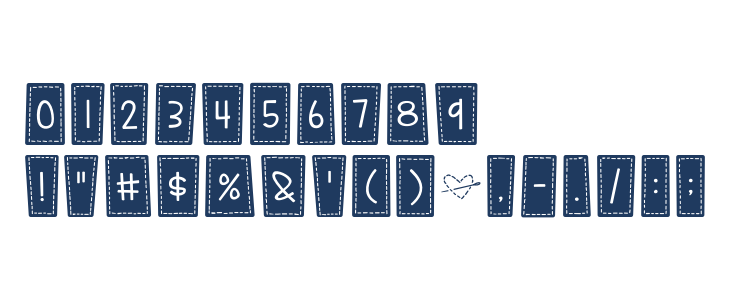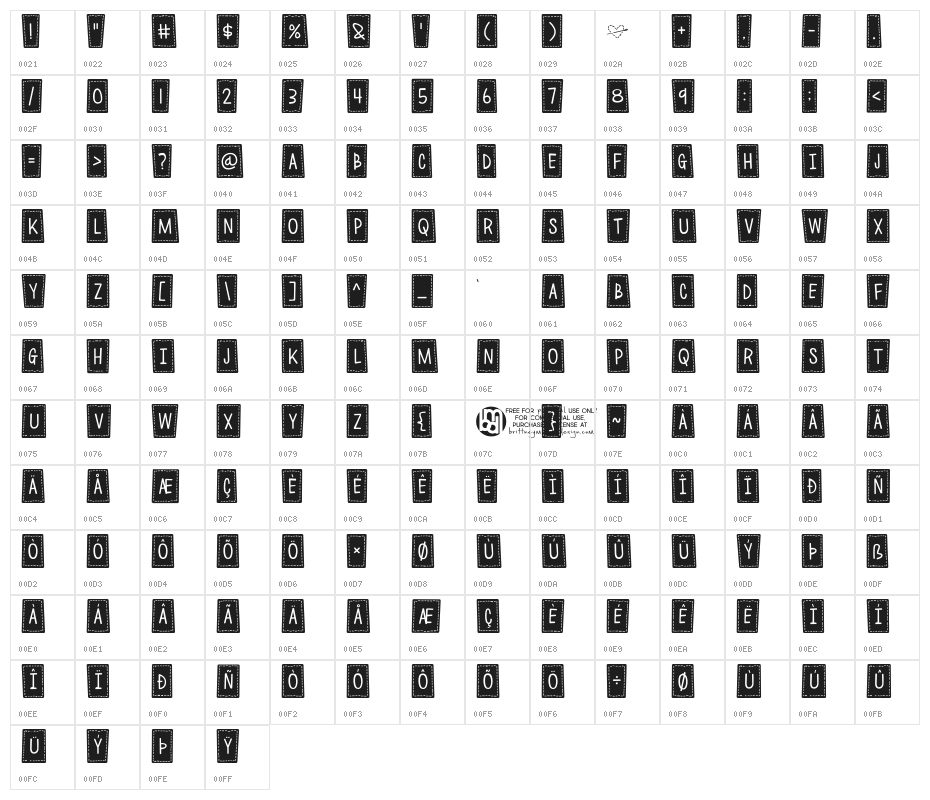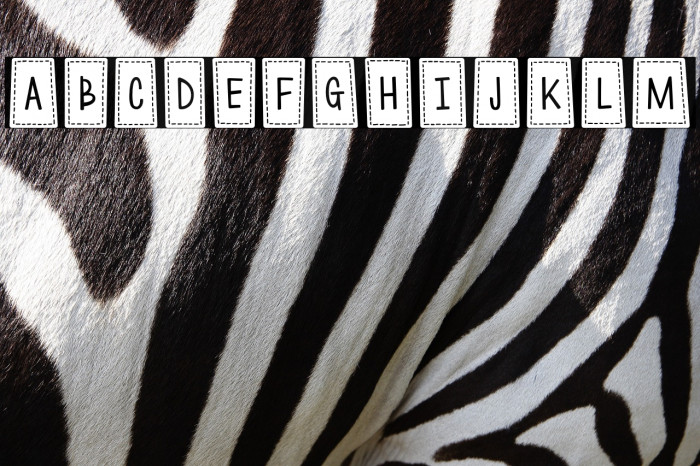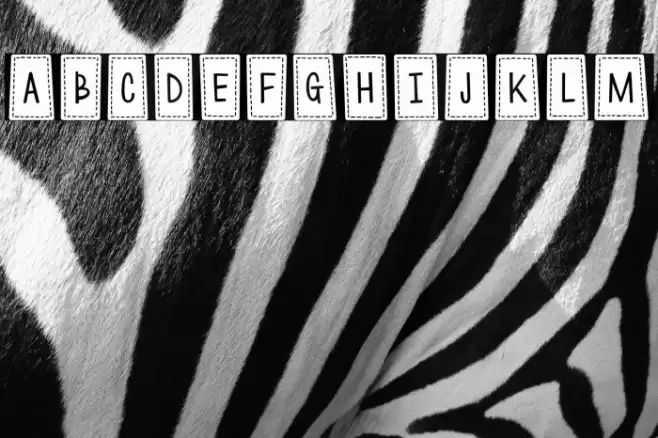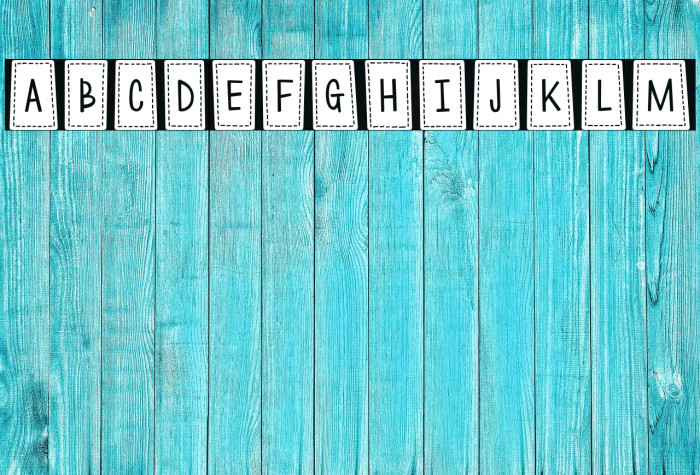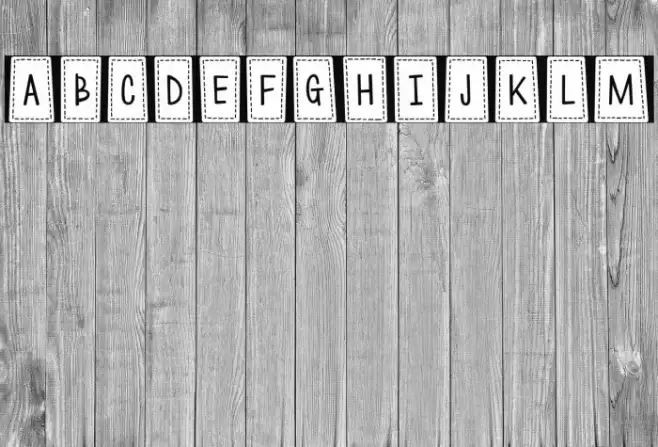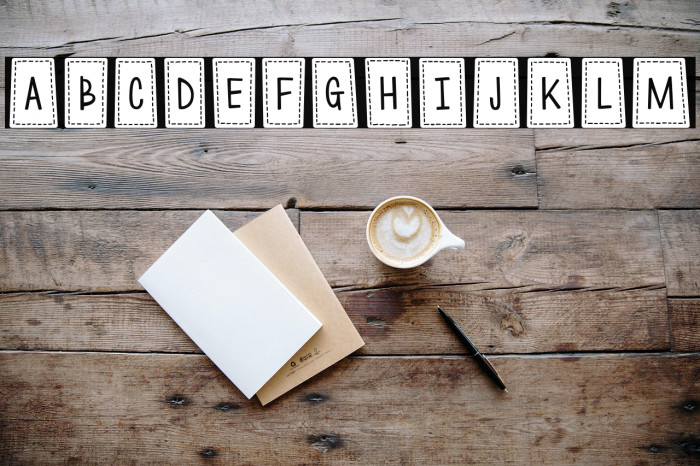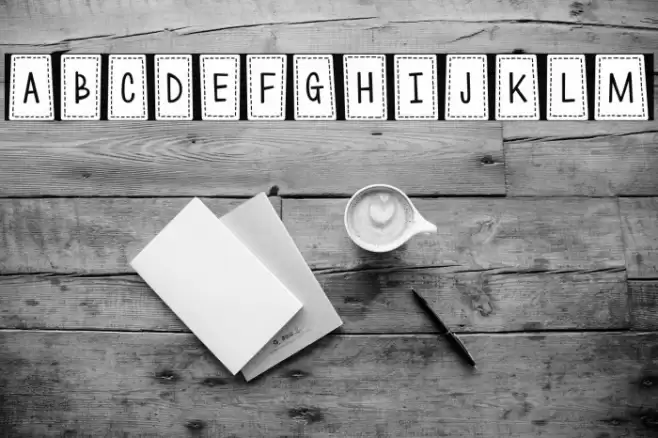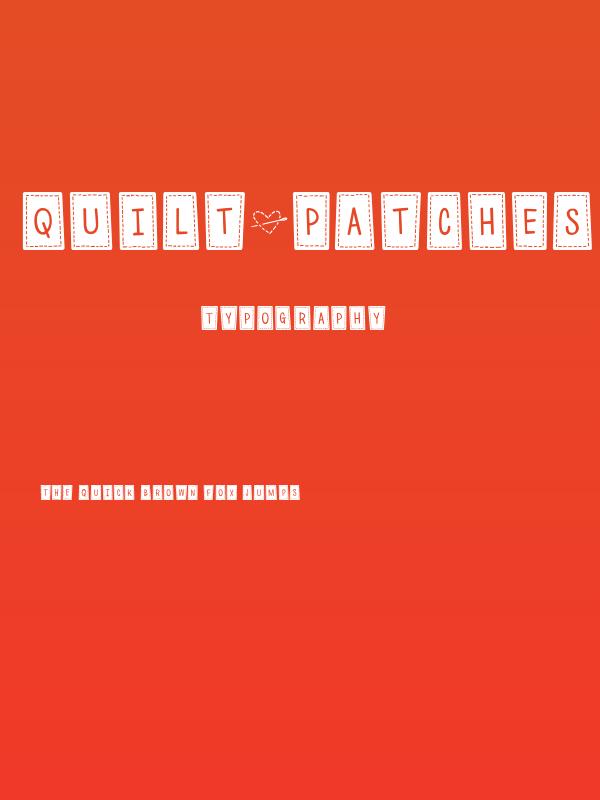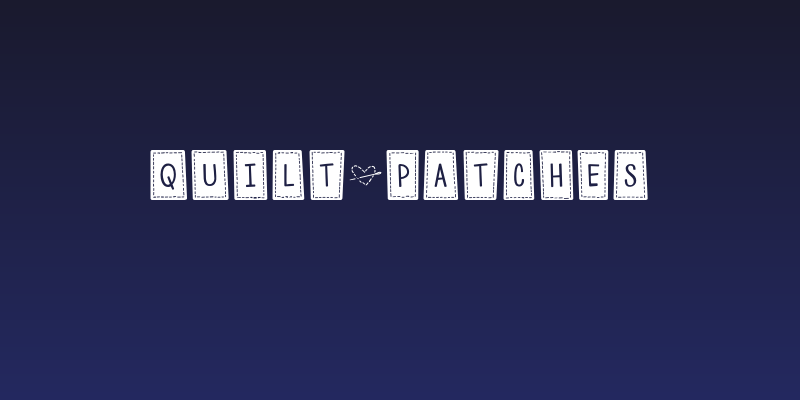
Quilt*Patches Font
Quilt*Patches Description
This font features a playful and whimsical design, reminiscent of quilt patches. Each character is enclosed in a rectangular patch with a dotted border, giving it a handcrafted and cozy appearance. The letters are bold and slightly irregular, adding to the charm and uniqueness of the style. The font includes both uppercase and lowercase letters, numbers, and a selection of special characters. The overall look is casual and friendly, making it suitable for projects that require a touch of warmth and personality.
| Proposed Projects | Ideal for children's books, craft projects, greeting cards, and DIY-themed designs. |